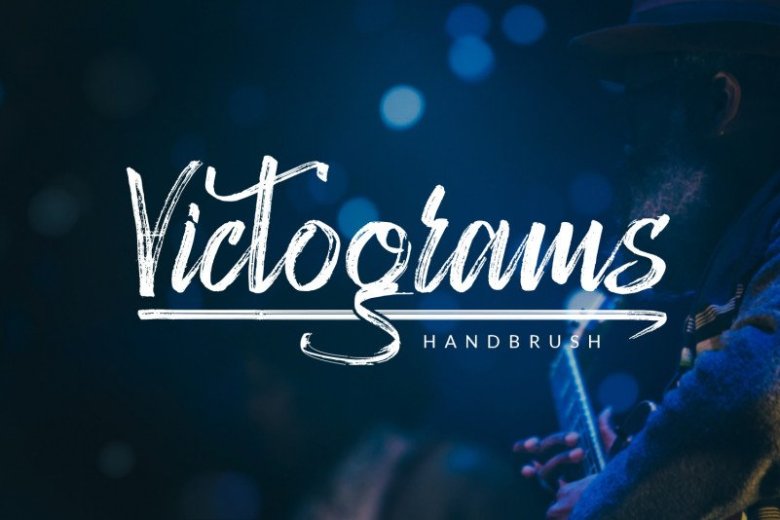
Victograms Handbrush Font
Victograms is a handbrush typeface. It’s a handbrush script font with authentic style. This font is made with a brush pen with very careful techniques, so the results are charismatic and have enchanting characteristics.
The Victograms font includes a full set capital and lowercase letters, as well as multi-lingual support, swashes, numerals, & punctuation.